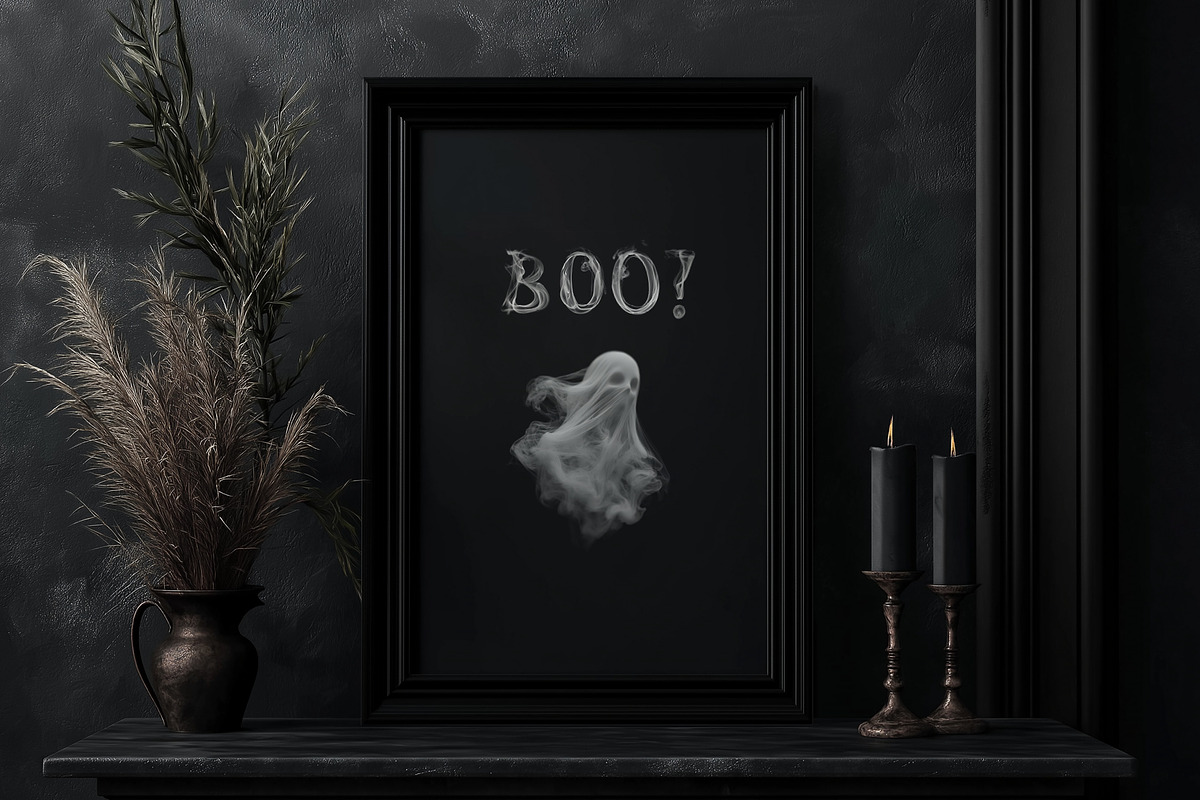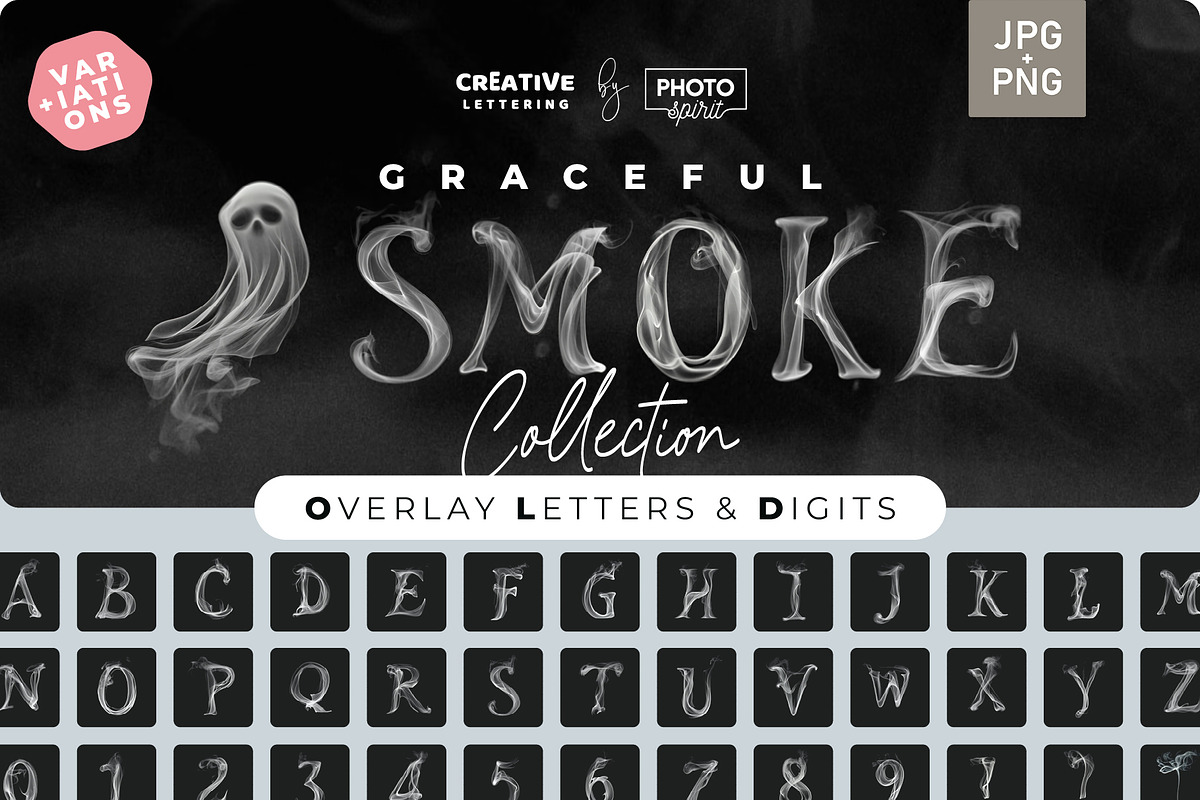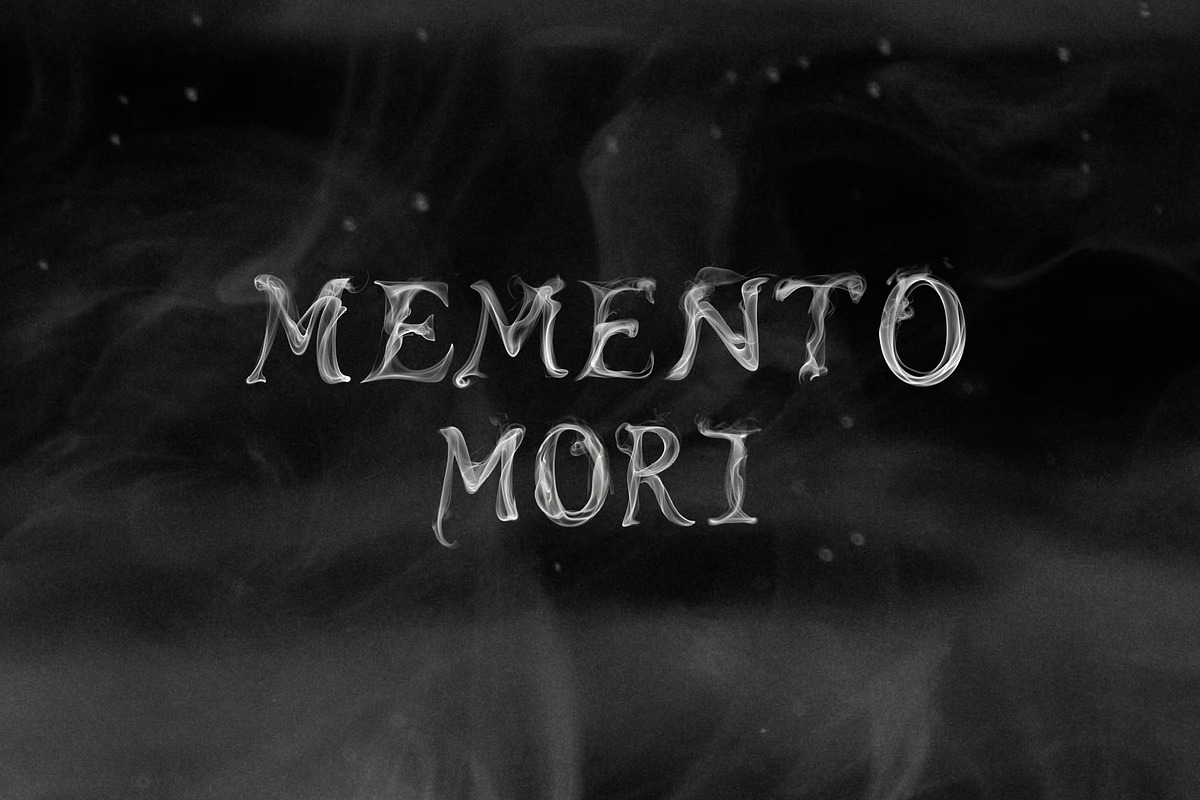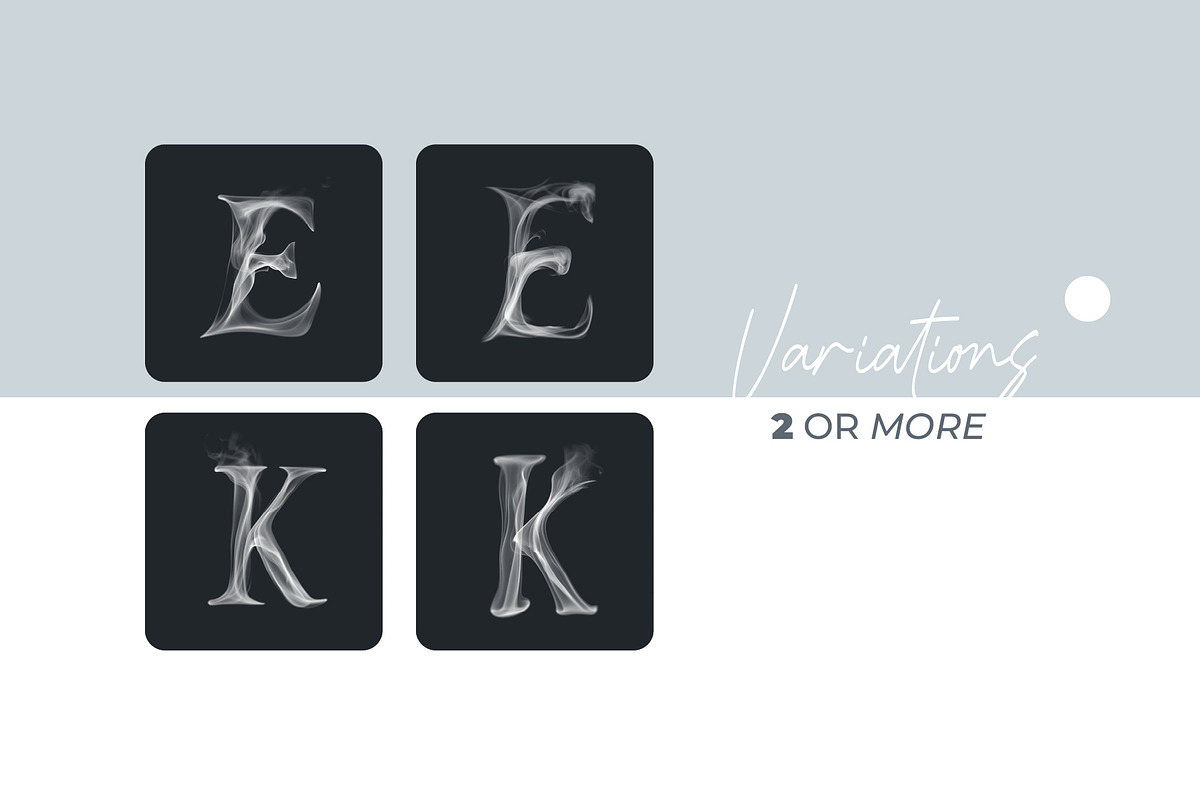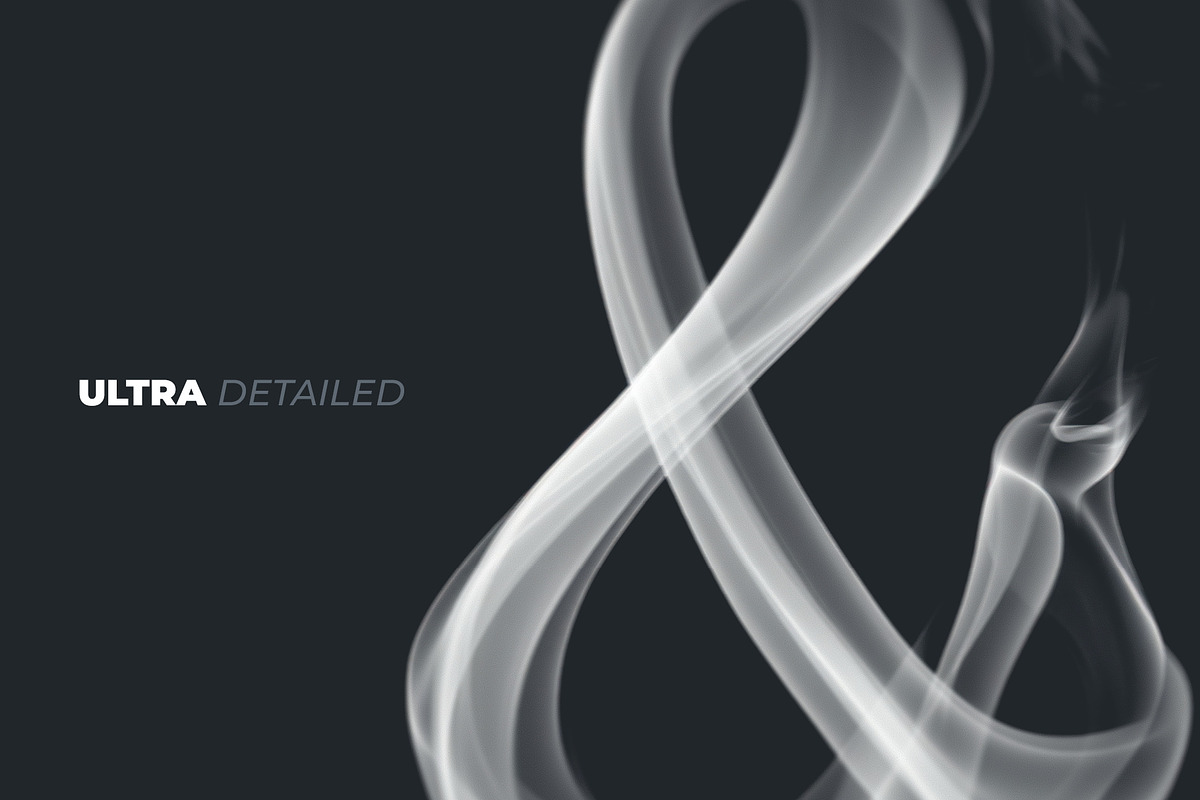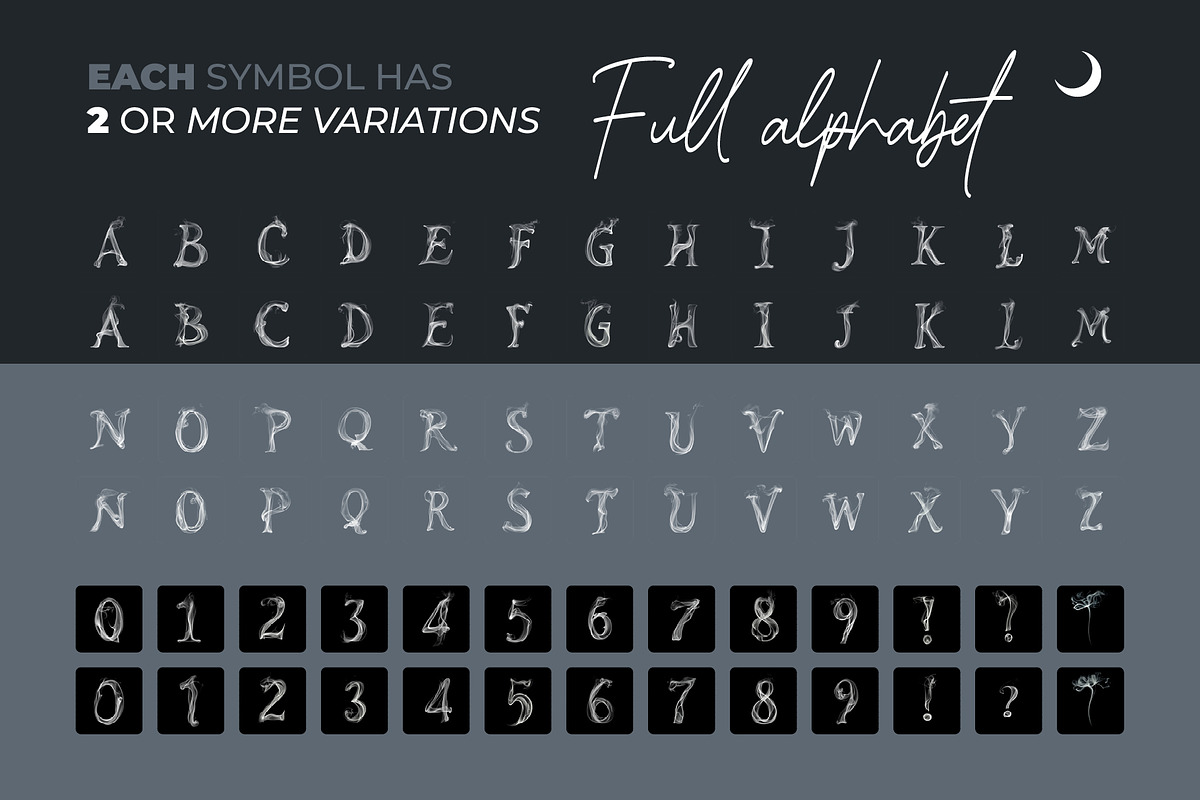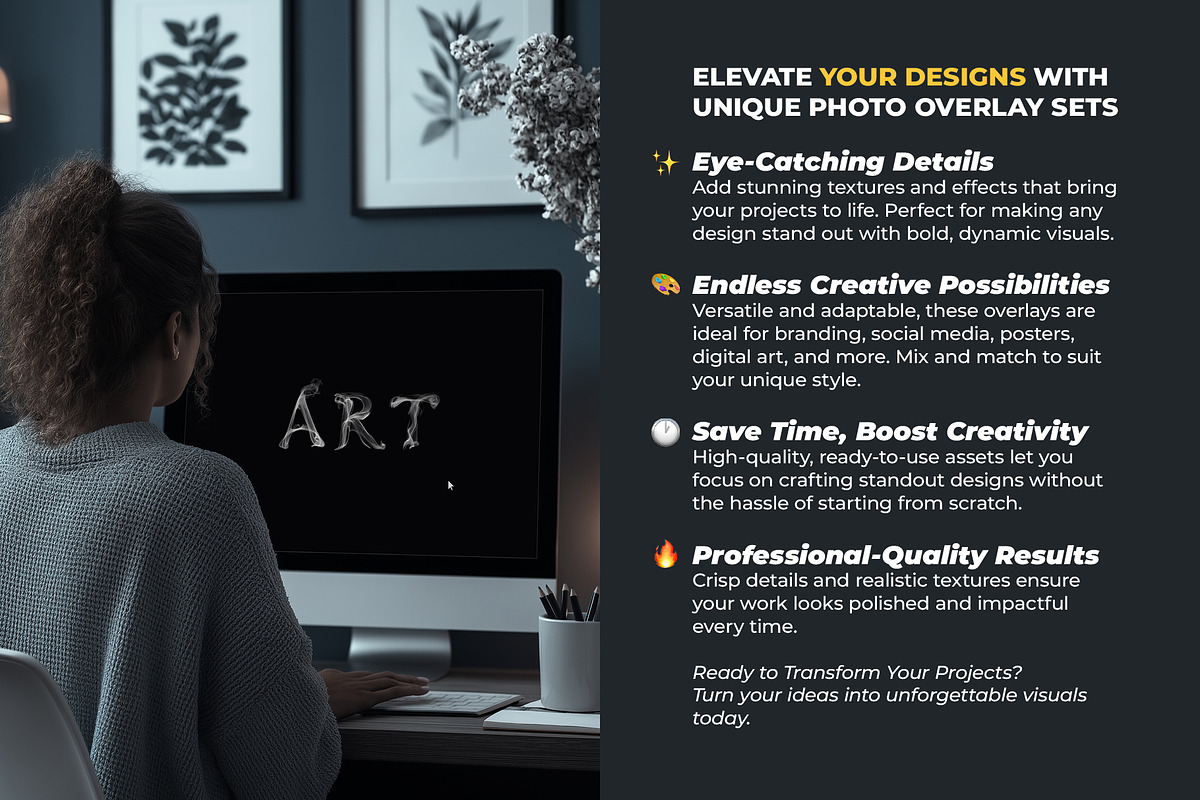
Graceful Smoke Letters Overlays
Elevate your projects with Graceful Smoke Alphabet Overlays , a stunning collection of letters, numbers, and symbols infused with soft, swirling smoke effects.
Crafted with meticulous attention to detail, each overlay captures the natural flow of smoke, offering a seamless blend of creativity and sophistication. Designed in ultra-high resolution (5000x5000 px), they ensure crisp, professional-quality results for both digital and print use.
✅ Complete Set : Includes uppercase letters, numbers, and essential symbols for all your creative needs.
✅ Realistic Smoke Effects : Soft, organic textures create an ethereal, otherworldly aesthetic.